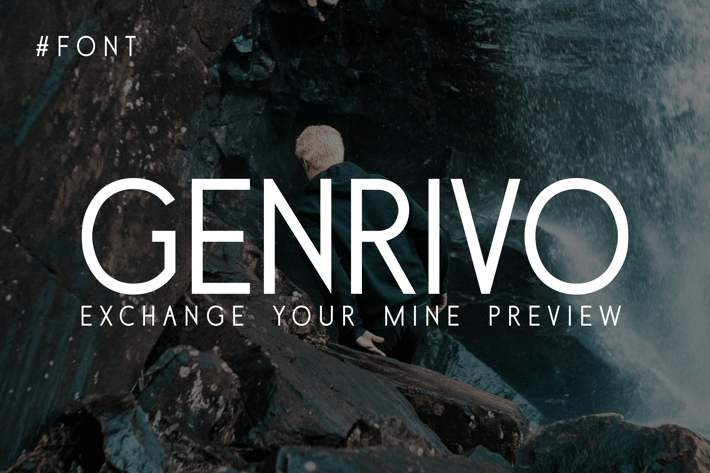
Genrivo Font
GENRIVO is a font designed for magazines or bold, edgy typography. With a sharp, dynamic look, itβs perfect for themes like parkour, adventure, and action-packed editorials.\
GENRIVO brings energy and intensity to the page, making it ideal for layouts that need a daring and powerful presence. Whether used for headlines or feature spreads, this font elevates the excitement and spirit of exploration in every project.